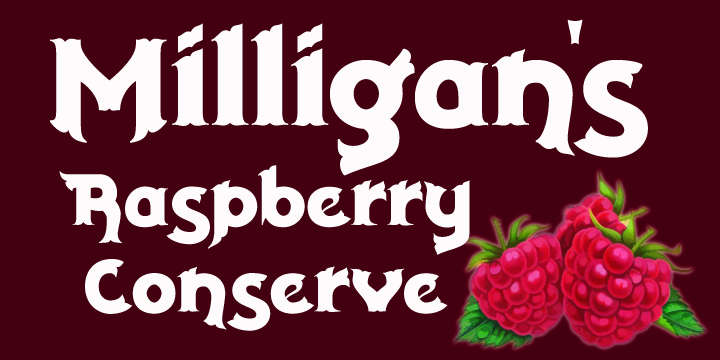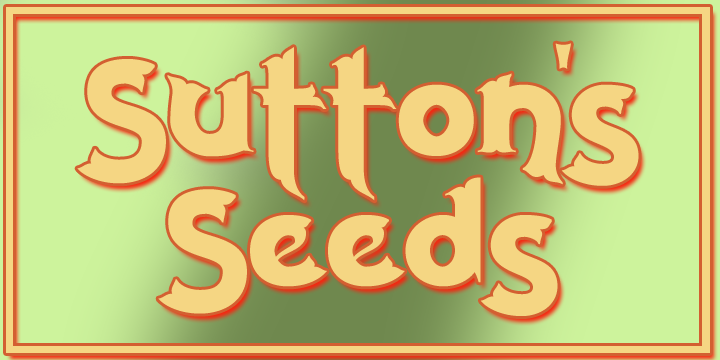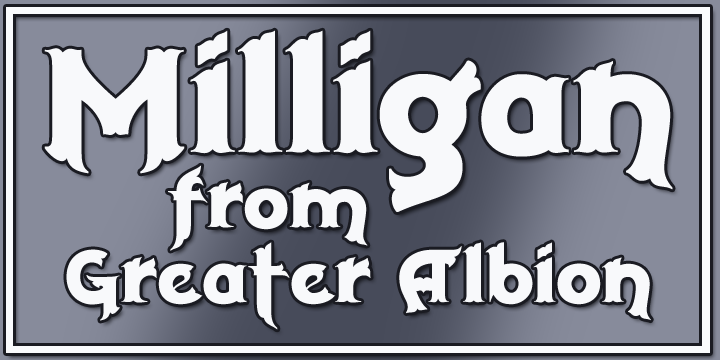
Milligan is a display font published by Greater Albion Typefounders.
Milligan is named in honour of the late Spike Milligan, a wonderful comedian who (amongst many other things) wrote and start in the Goon Show. It’s a jolly, boisterous display Roman which can bring a sense of liveliness and fun to any project where it’s used.